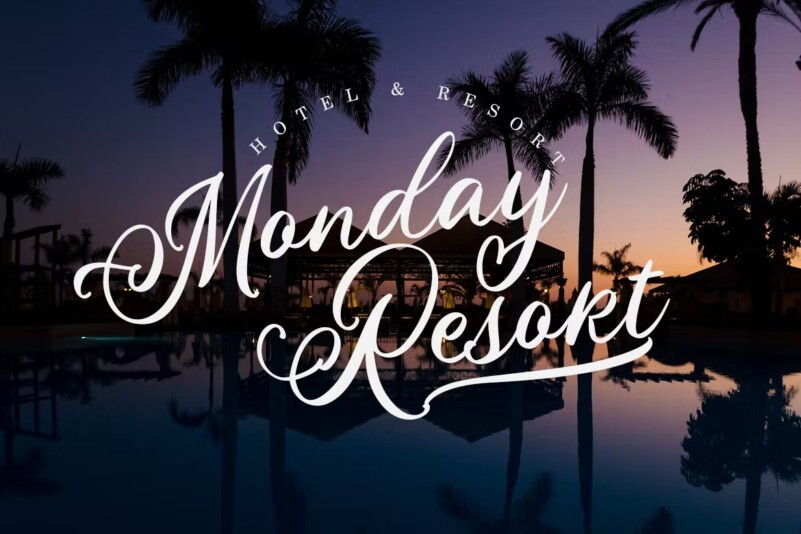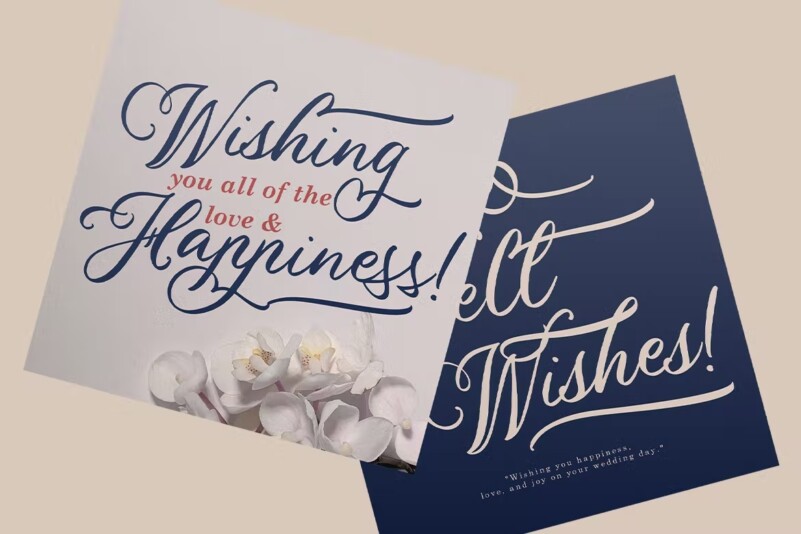
Special Bouquet Font
Today we’re releasing one of the most romantic fonts we’ve ever created. We called it Special Bouquet. The characters in the special bouquet are soft and feminine without being too curly. They give you all the punch you need, while still being smooth and easy to read.
Special Bouquet is a romantic font that will add a touch of elegance to all your projects. You’ll find the perfect calligraphy style, embellishments, and brush set to create your own personalized wedding invitations, high-end displays for local businesses, or greeting cards to send a special message.